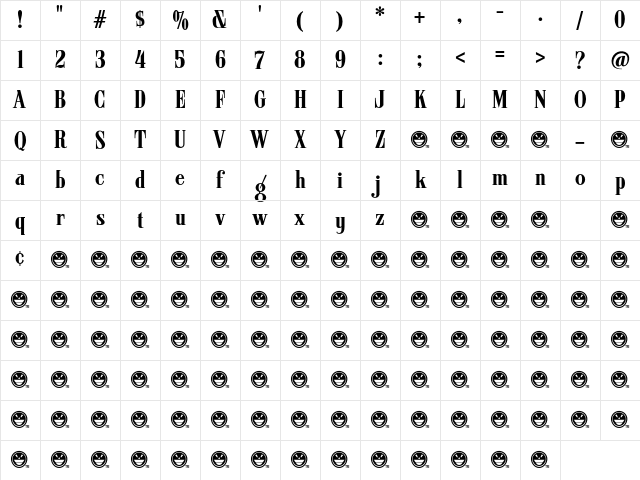
Complete ARB 08 Extreme Roman AUG-32 CAS Regular glyph index. Displaying only characters natively supported by ARB 08 Extreme Roman AUG-32 CAS Regular font.
ARB 08 Extreme Roman AUG-32 CAS is a composed and adaptable typeface that performs quietly and consistently across a wide range of design contexts.